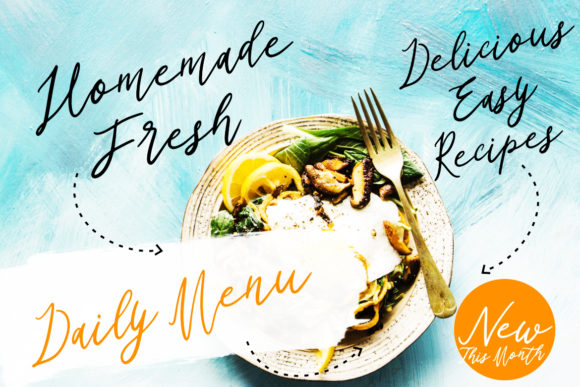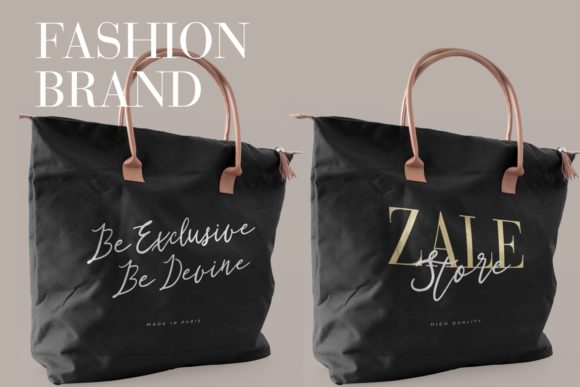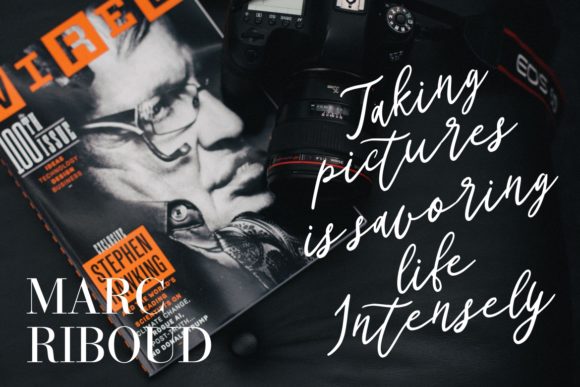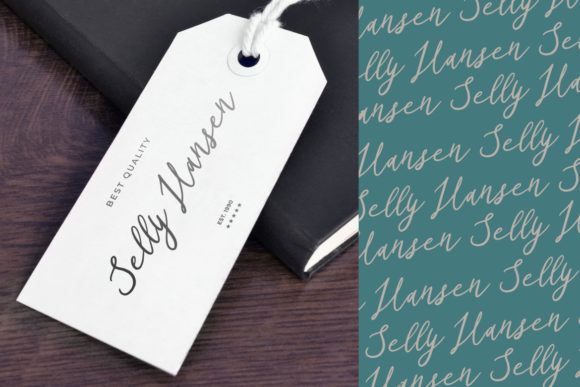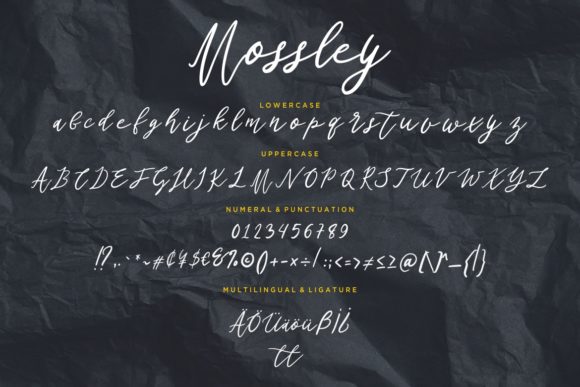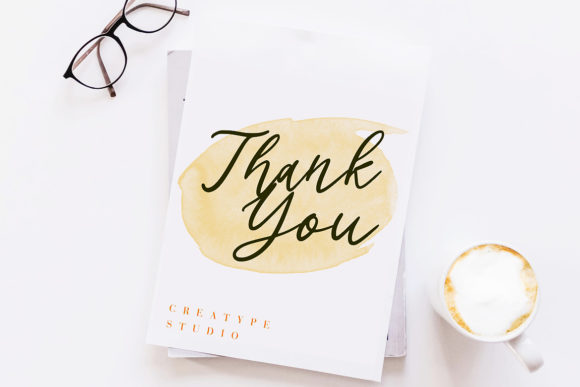
Mossley Font
About Mossley Font
Mossley is a romantic and flowing handwritten font. Fall in love with its incredibly versatile style and use it to create gorgeous wedding invitations, beautiful stationary art, eye-catching social media posts, and much more!